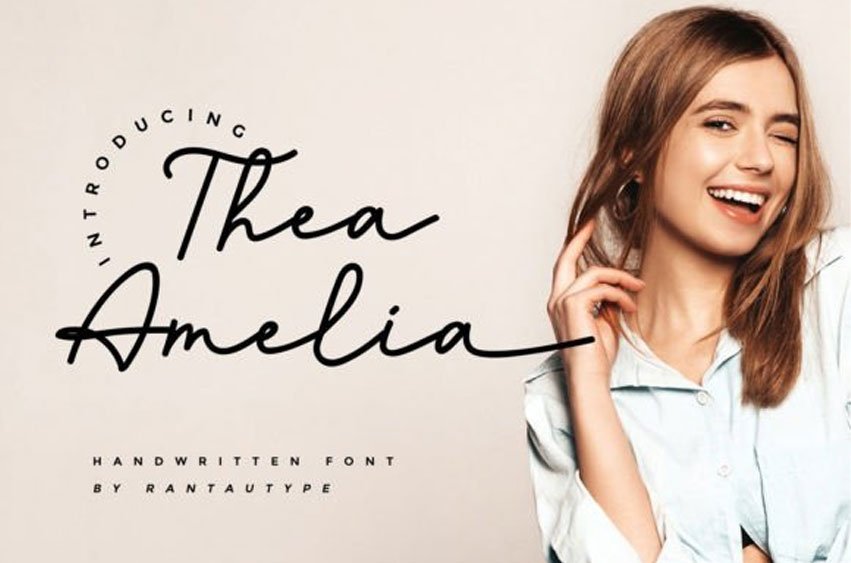
Thea Amelia Font is a dainty and sweet handwritten font.
Fall in love with its gorgeous style and use it to create wedding invitations, stationary art, social media posts, and much more!